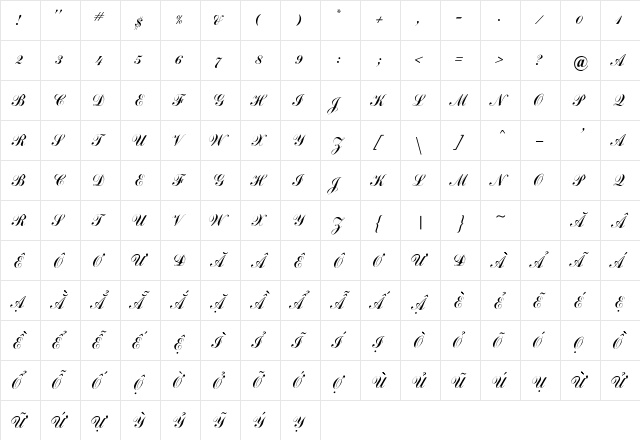
.VnCommercial ScriptH Italic Font Preview
.VnCommercial ScriptH Italic
Design Context for .VnCommercial ScriptH Typeface
.VnCommercial ScriptH brings a calligraphic fluidity to the page — its connecting strokes and expressive curves give it an unmistakably human quality.